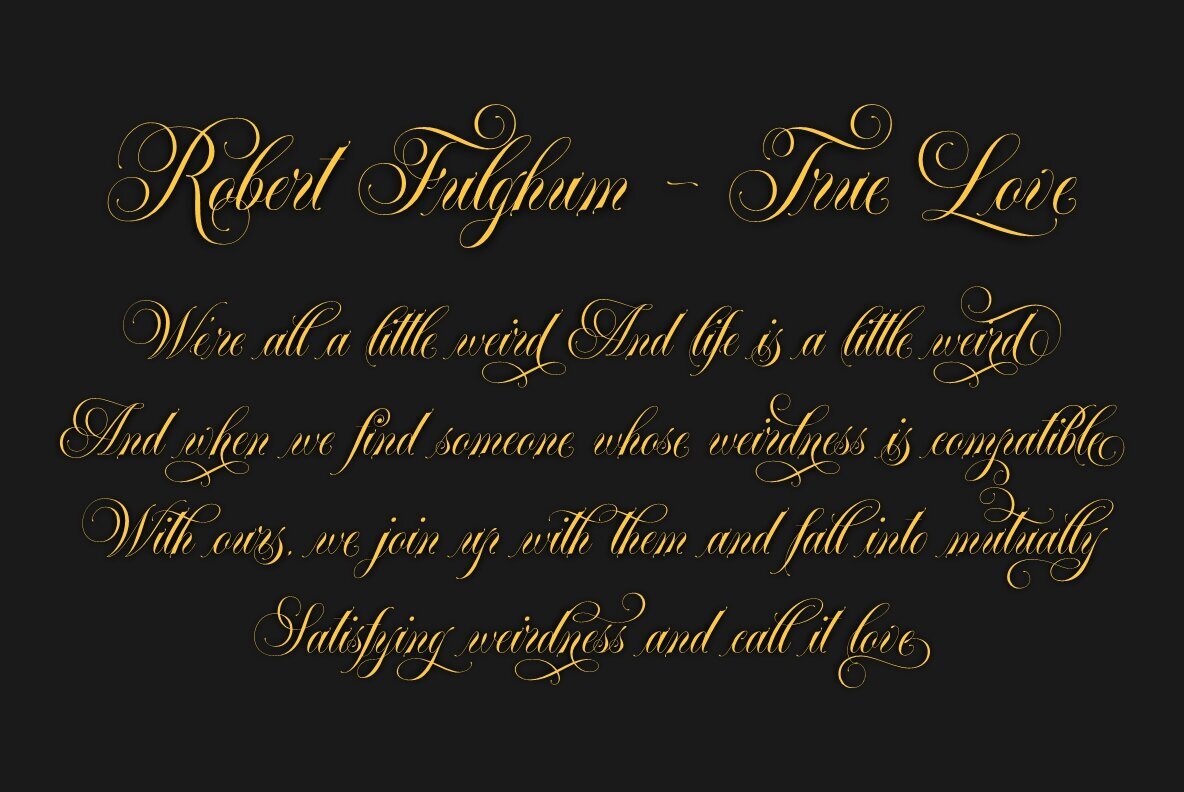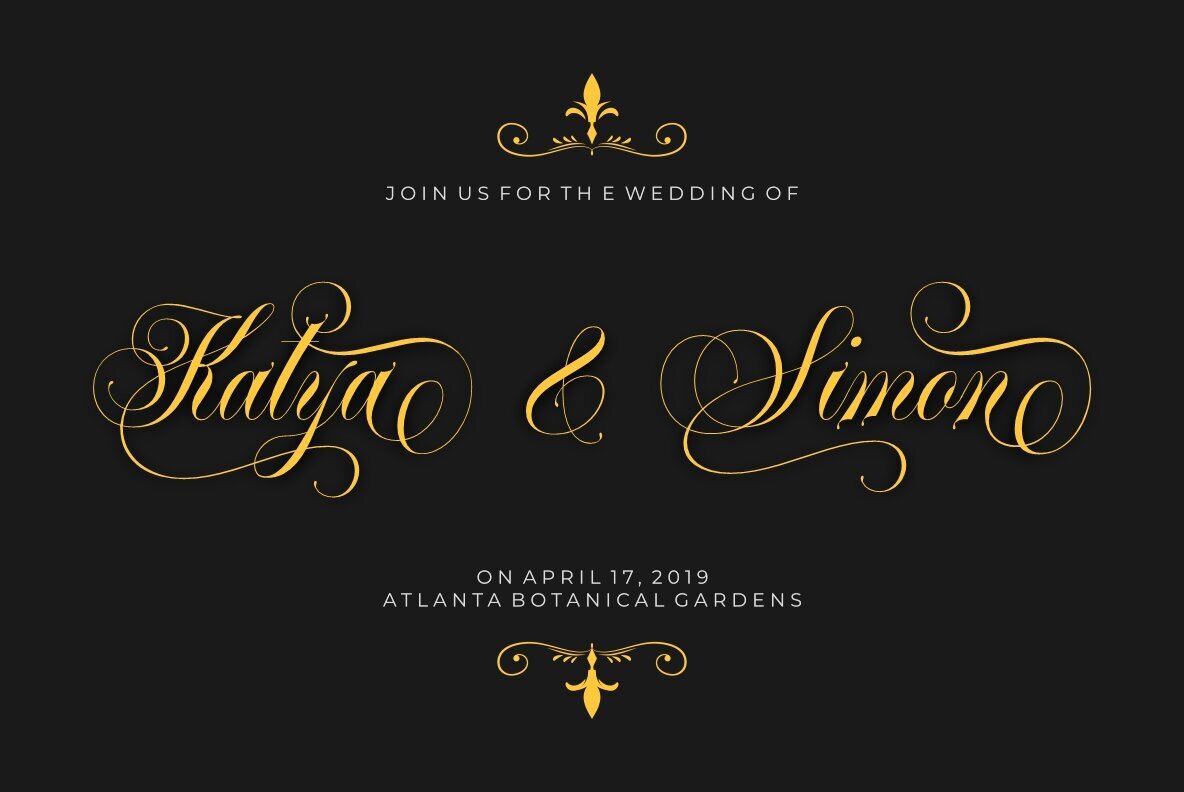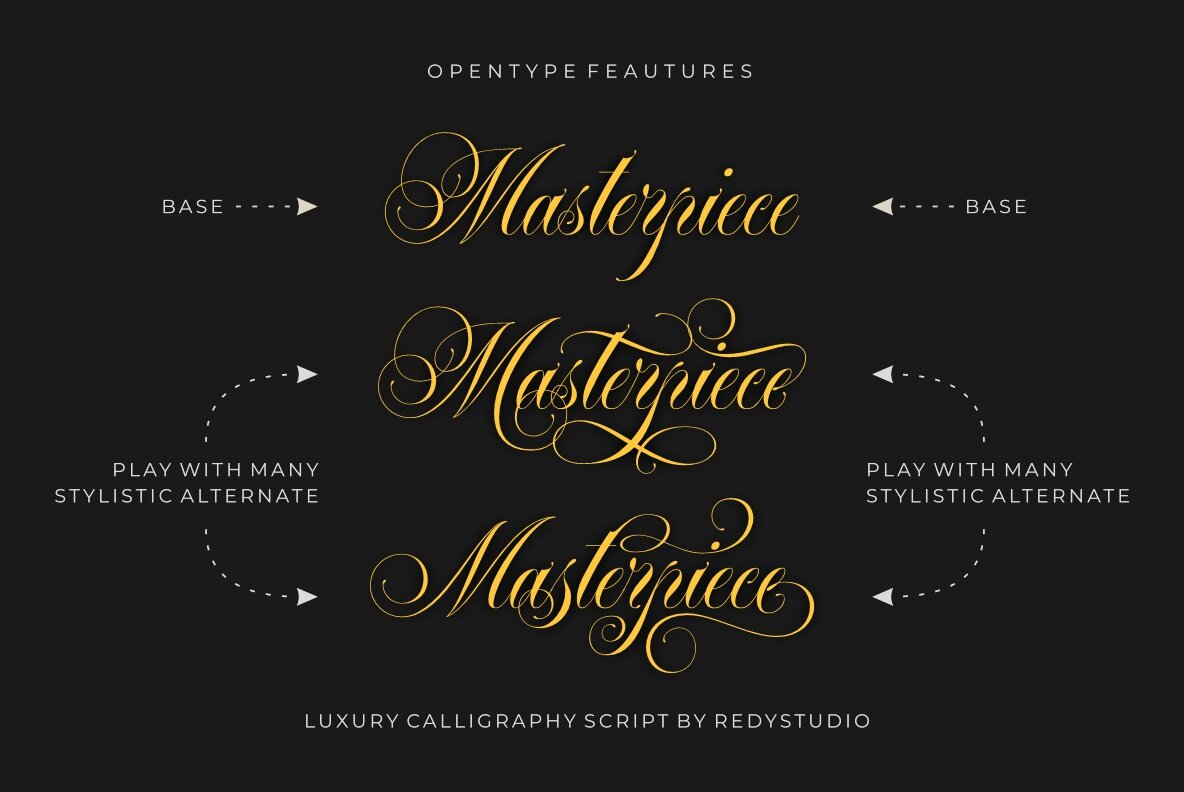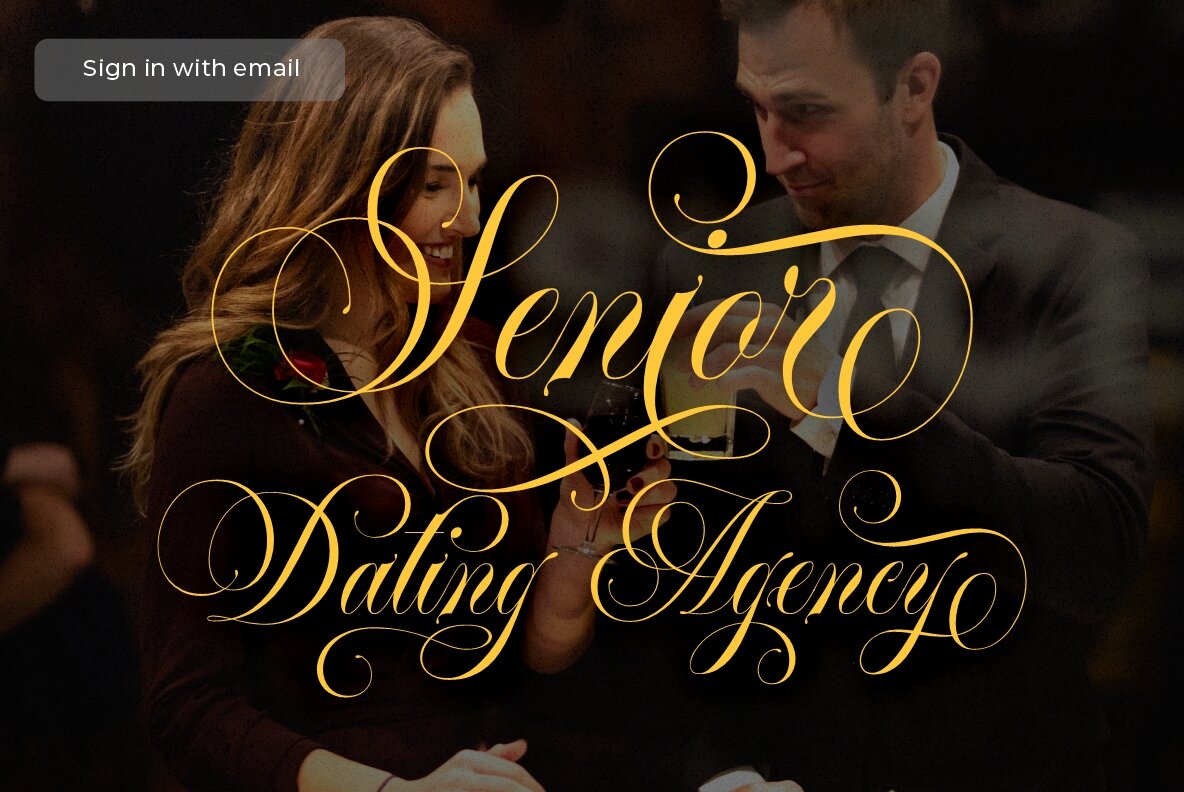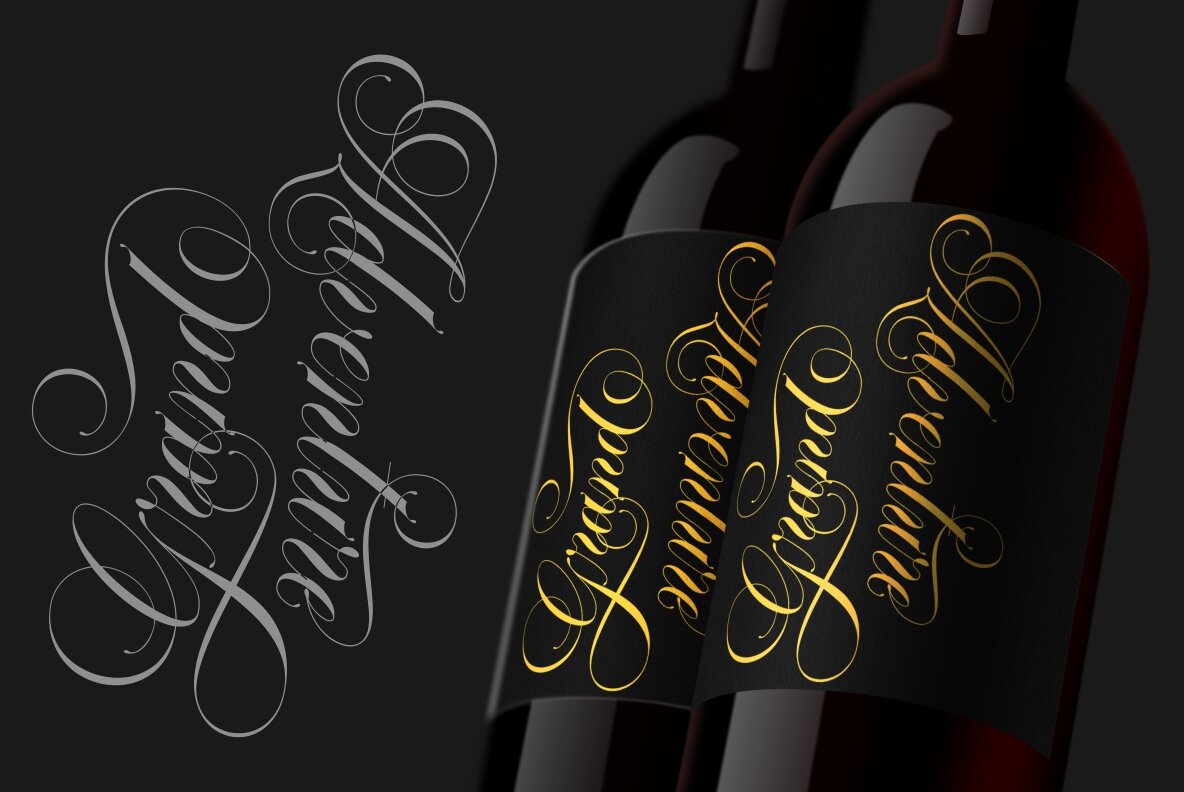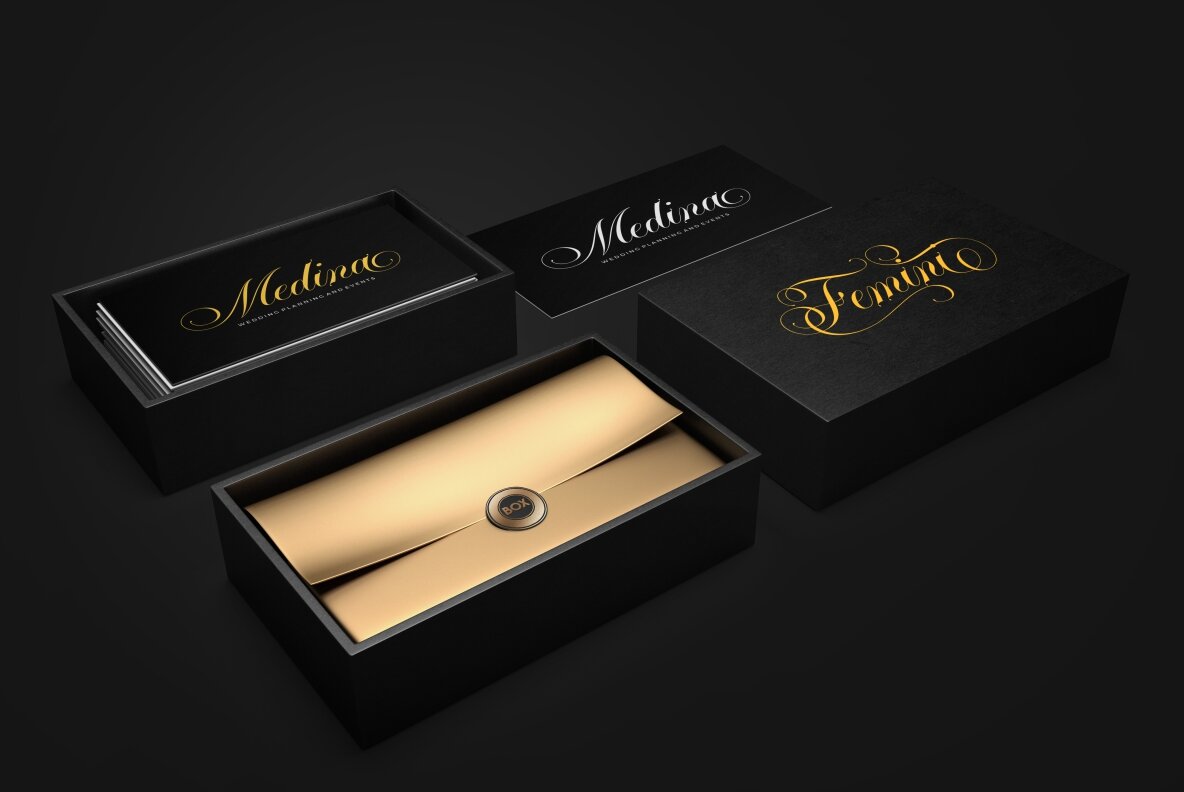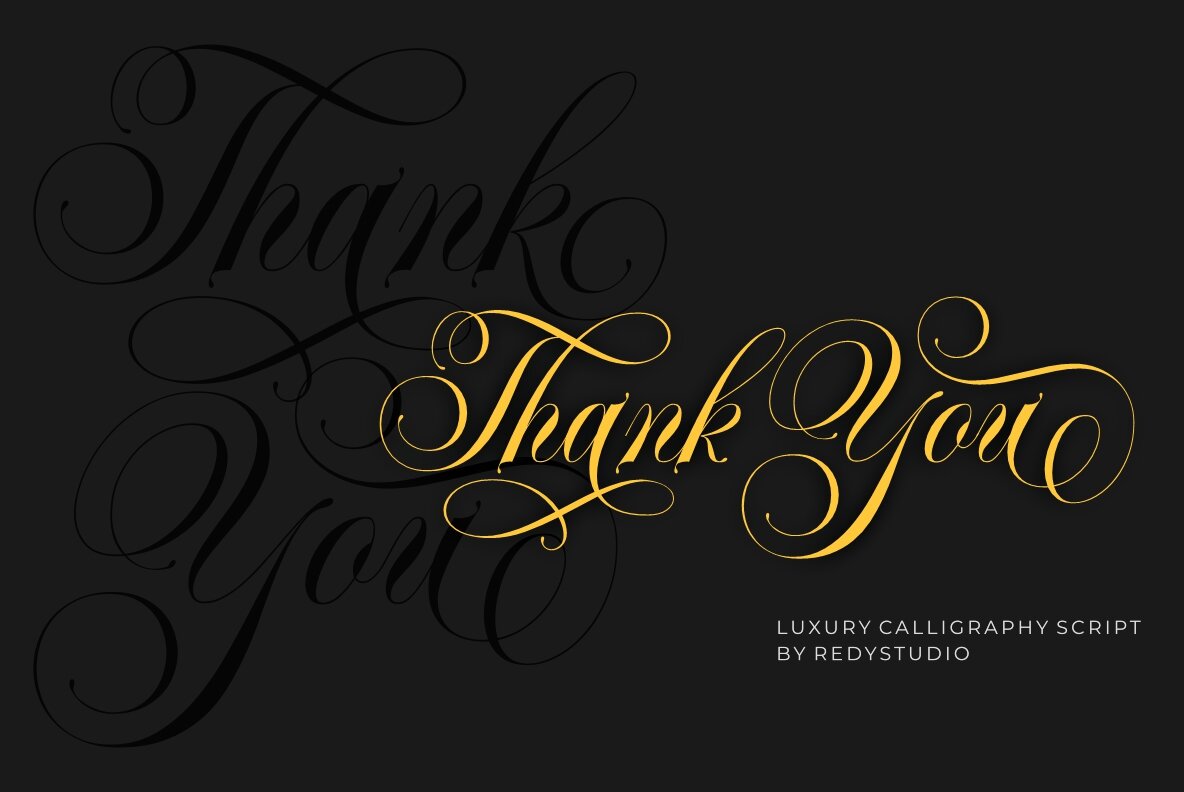
Banda Neira Script Font
Banda Neira Script
Banda Neira Script presents a blend of femininity, luxury, and modernity in a calligraphy font. With its extensive alternate glyphs, every word gains a unique flair. By pairing elaborate scripts with strategic negative space, this collection showcases the fluidity of calligraphy while drawing inspiration from the nuances of handwriting. Its intricate design makes it suitable for a variety of projects, ensuring an added layer of sophistication. Features:Banda Neira Script: Elegant Calligraphy Font